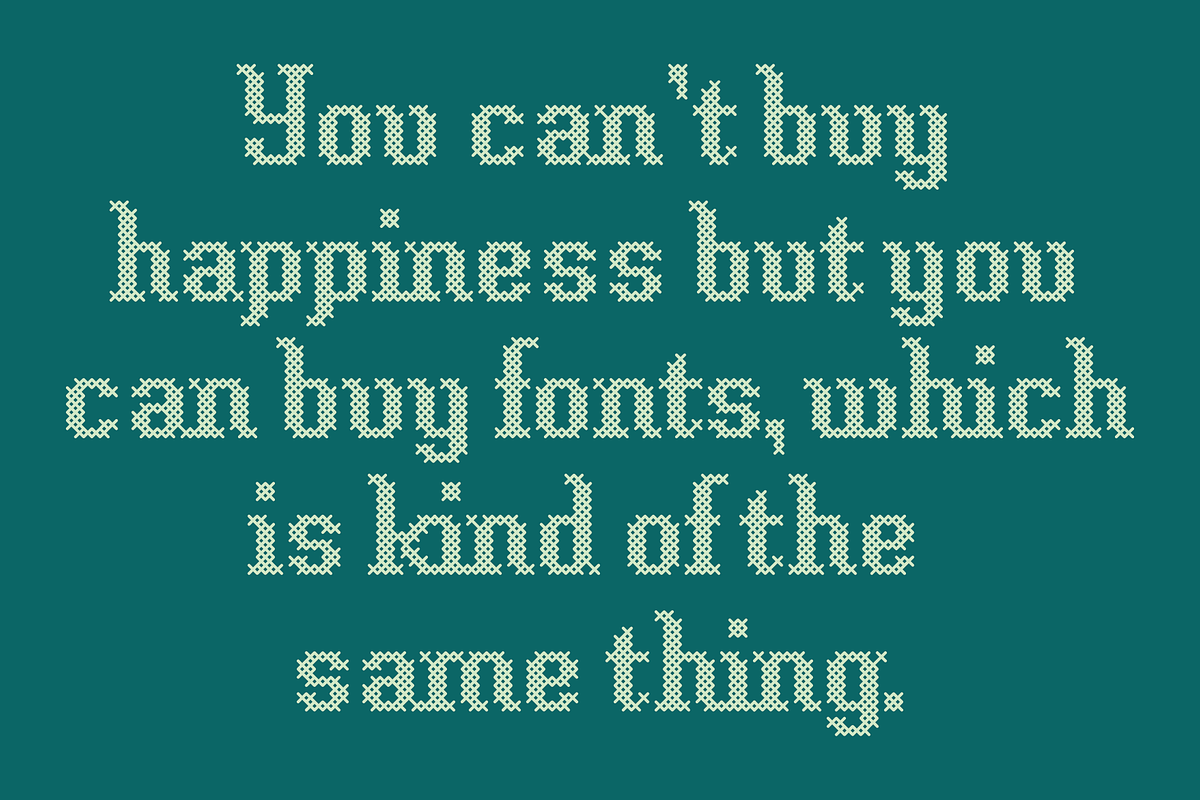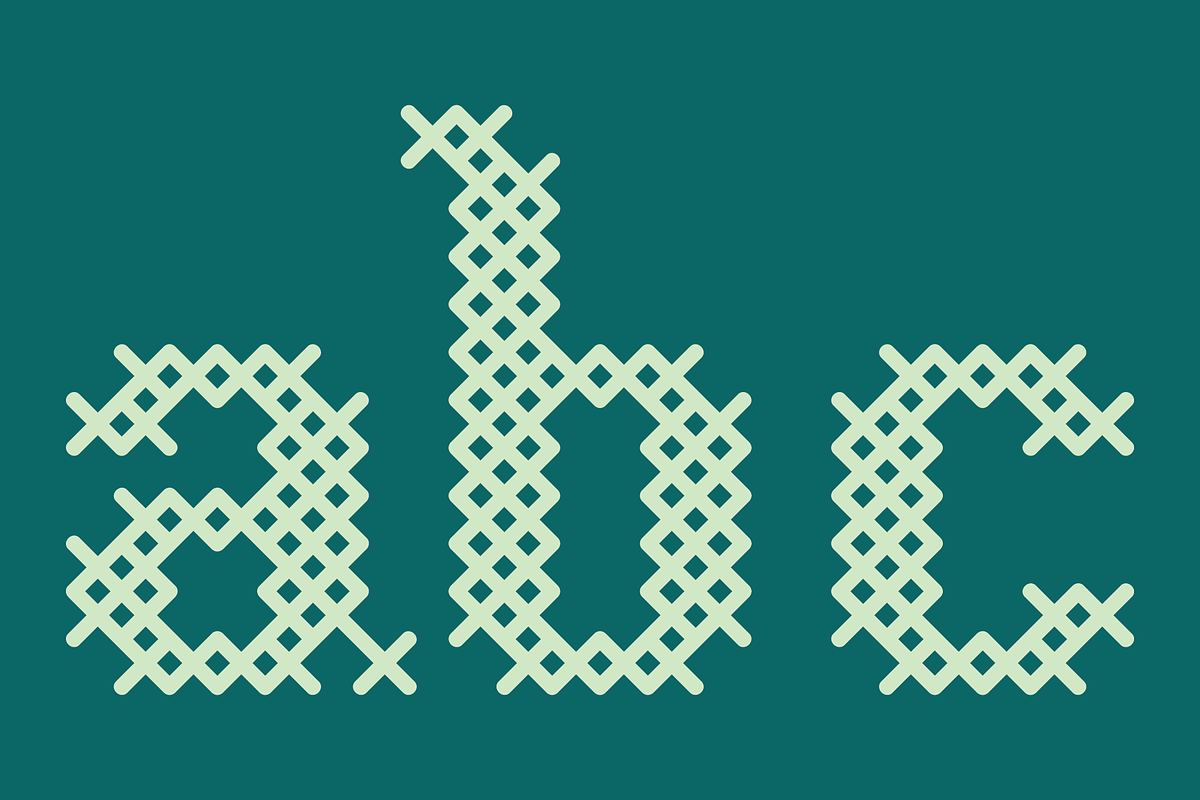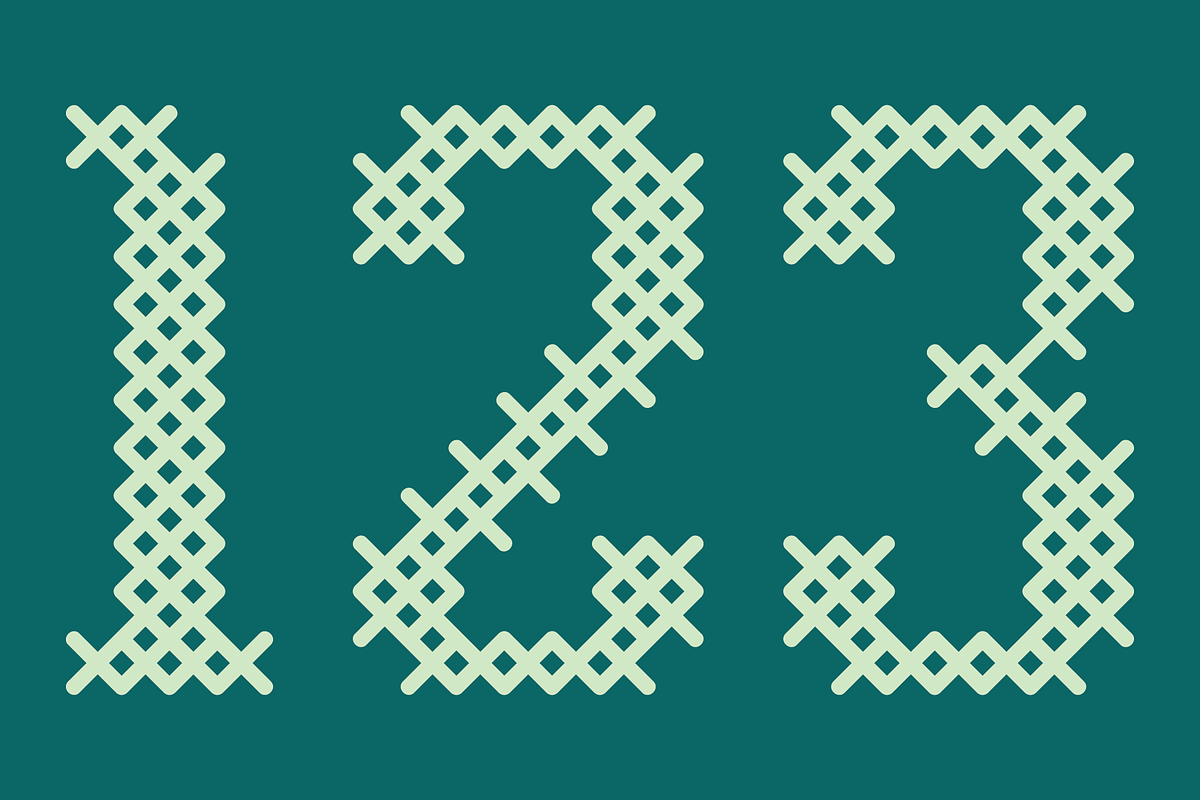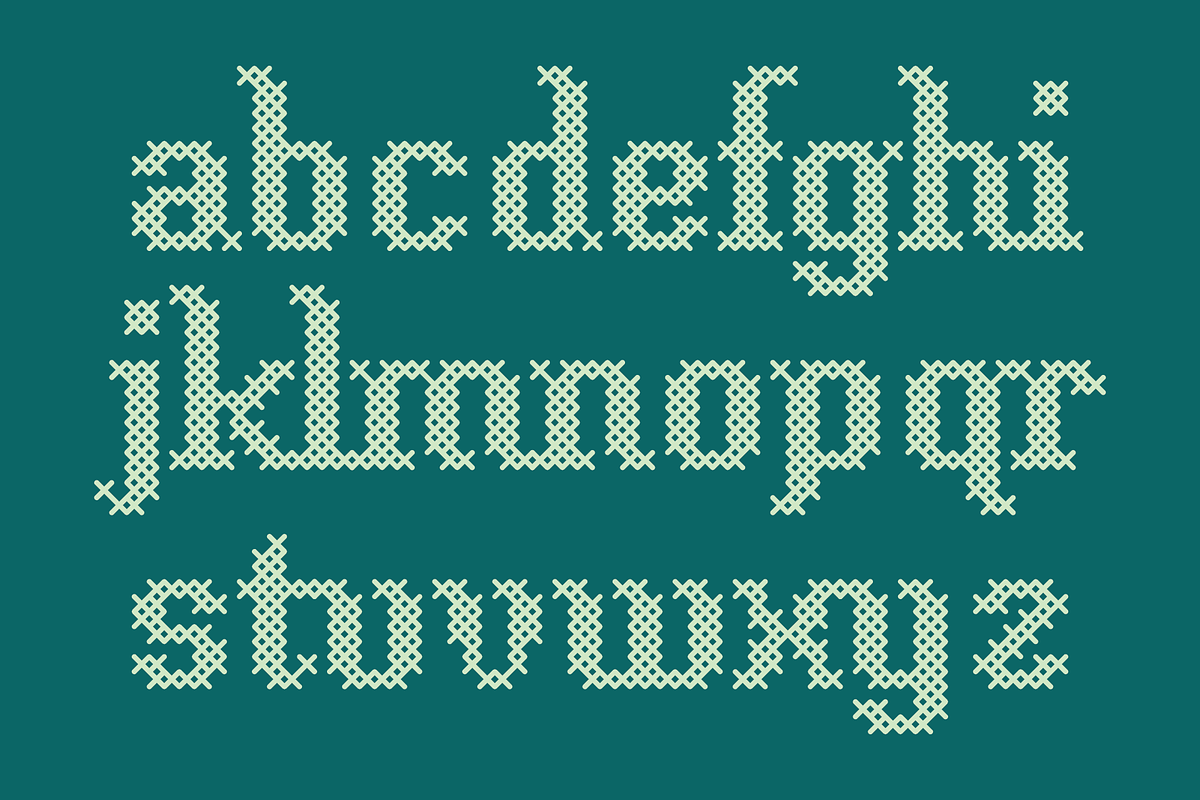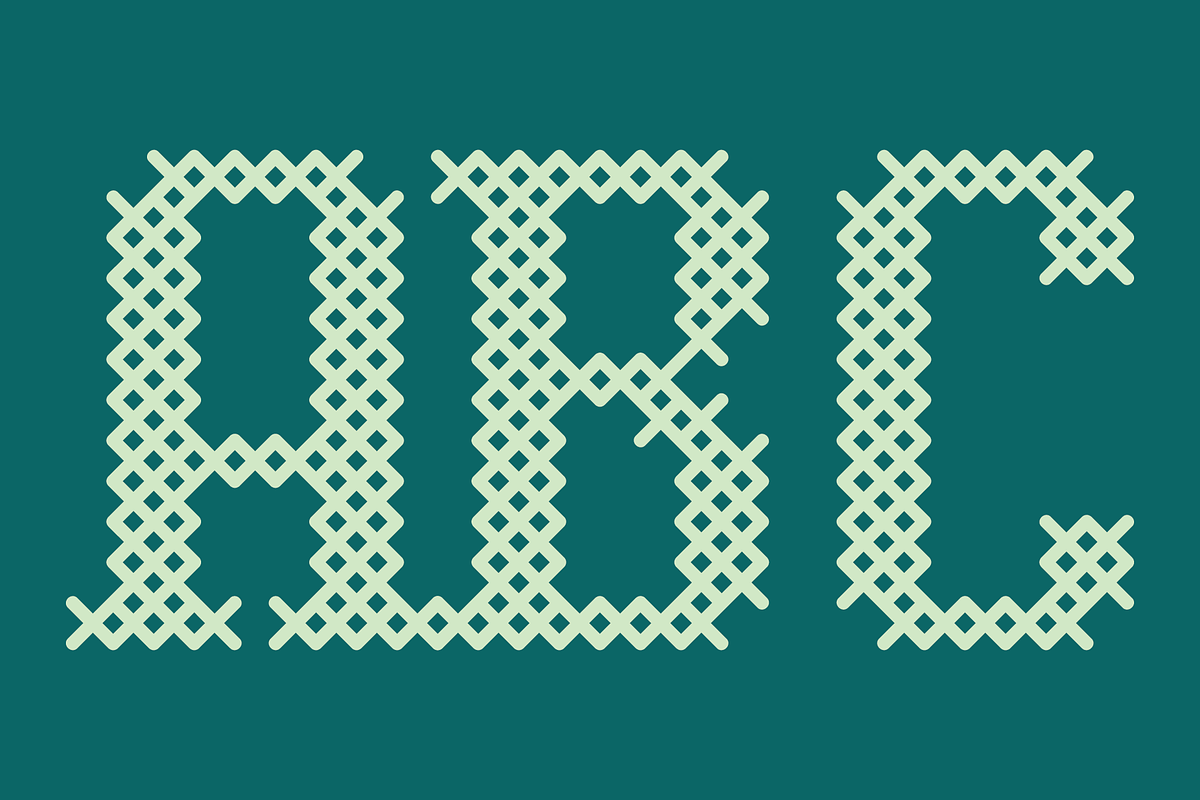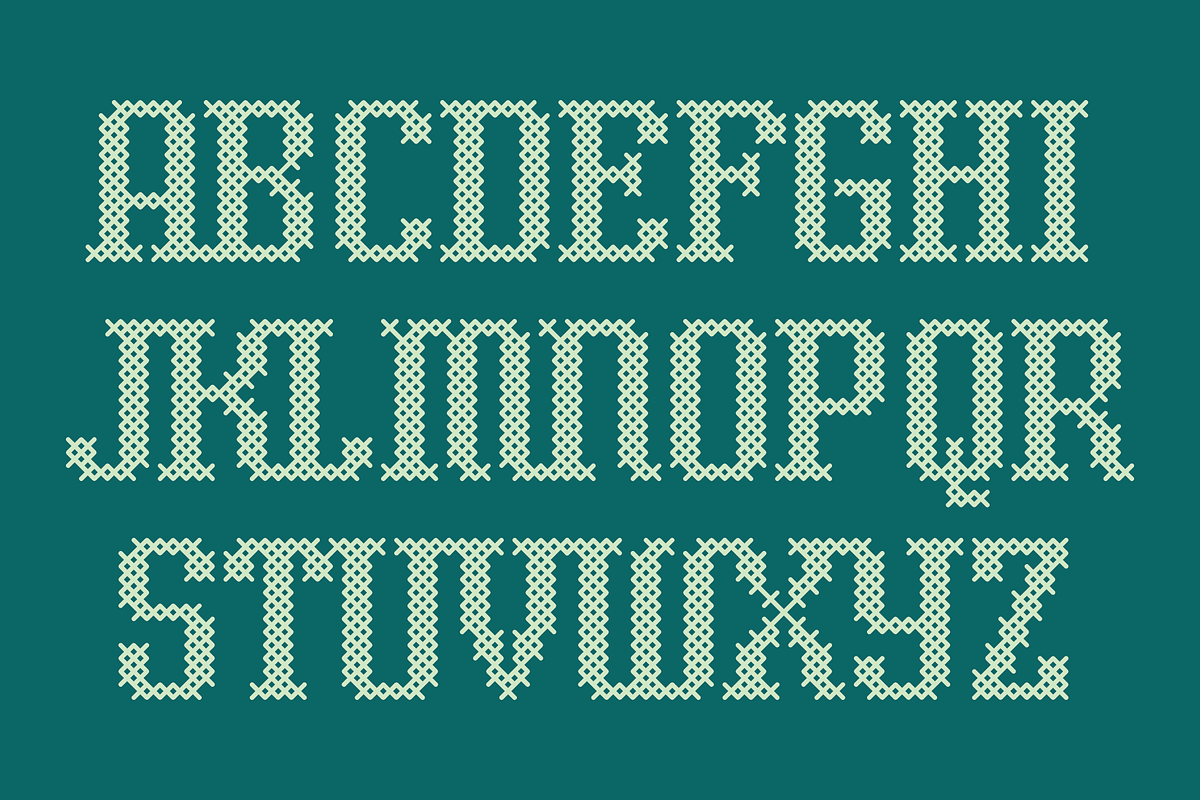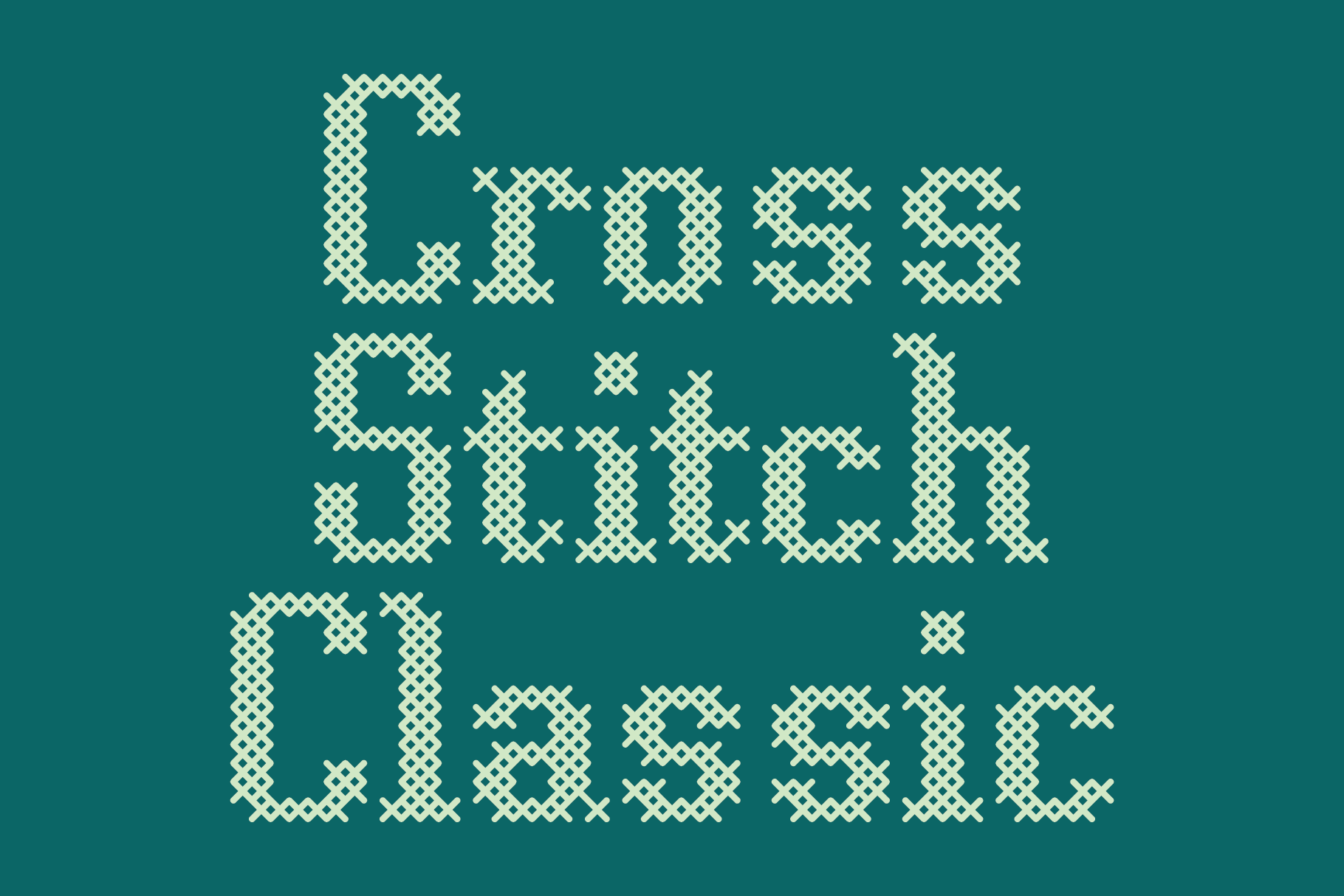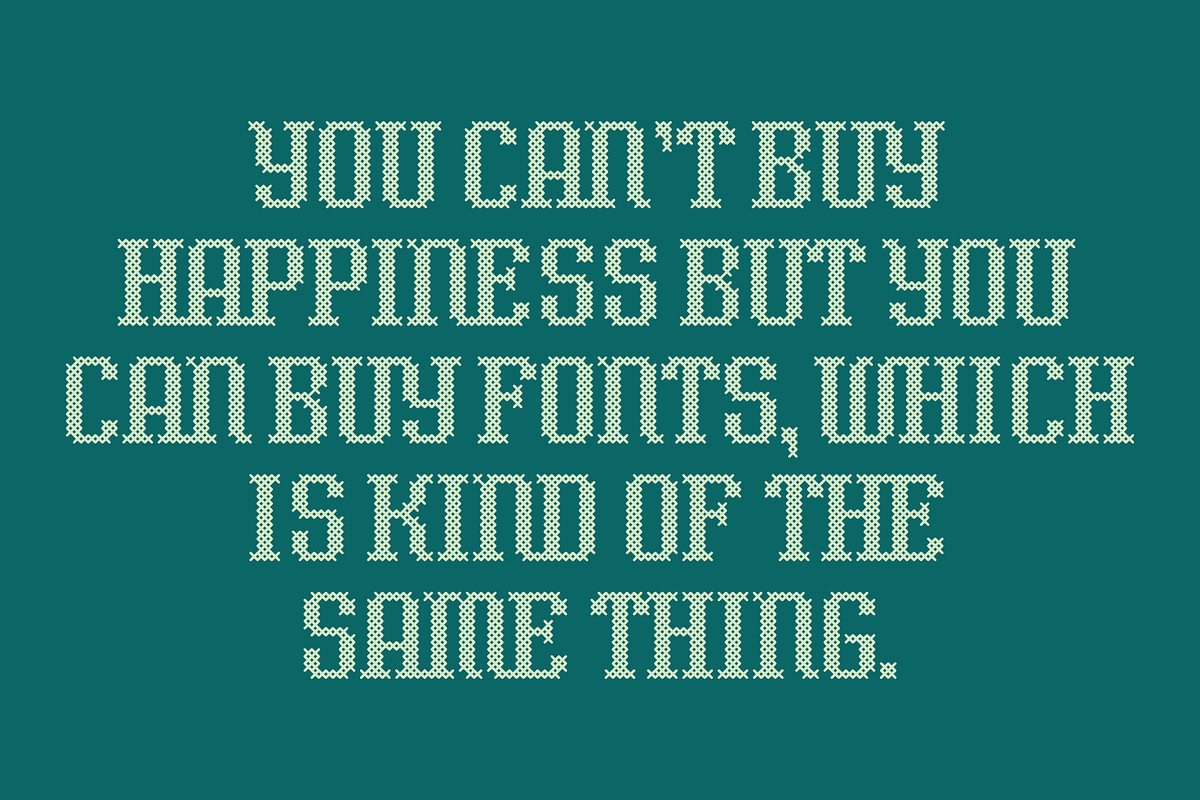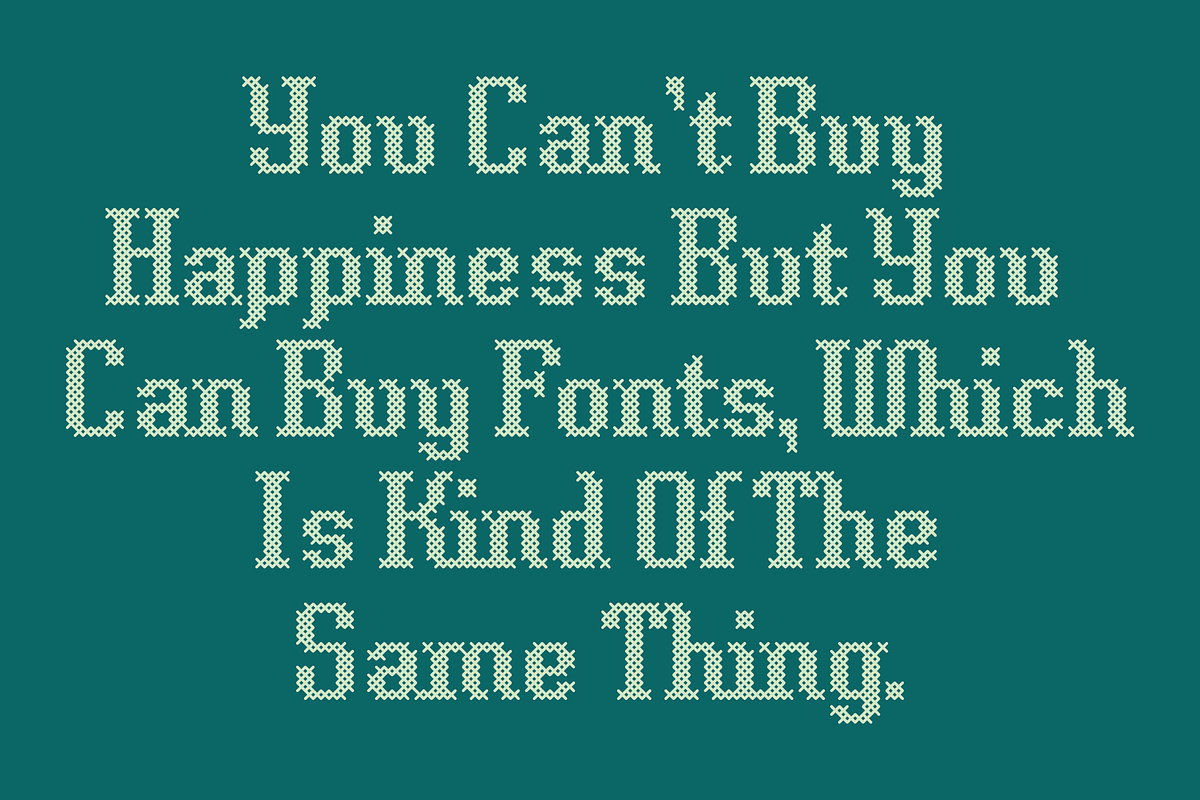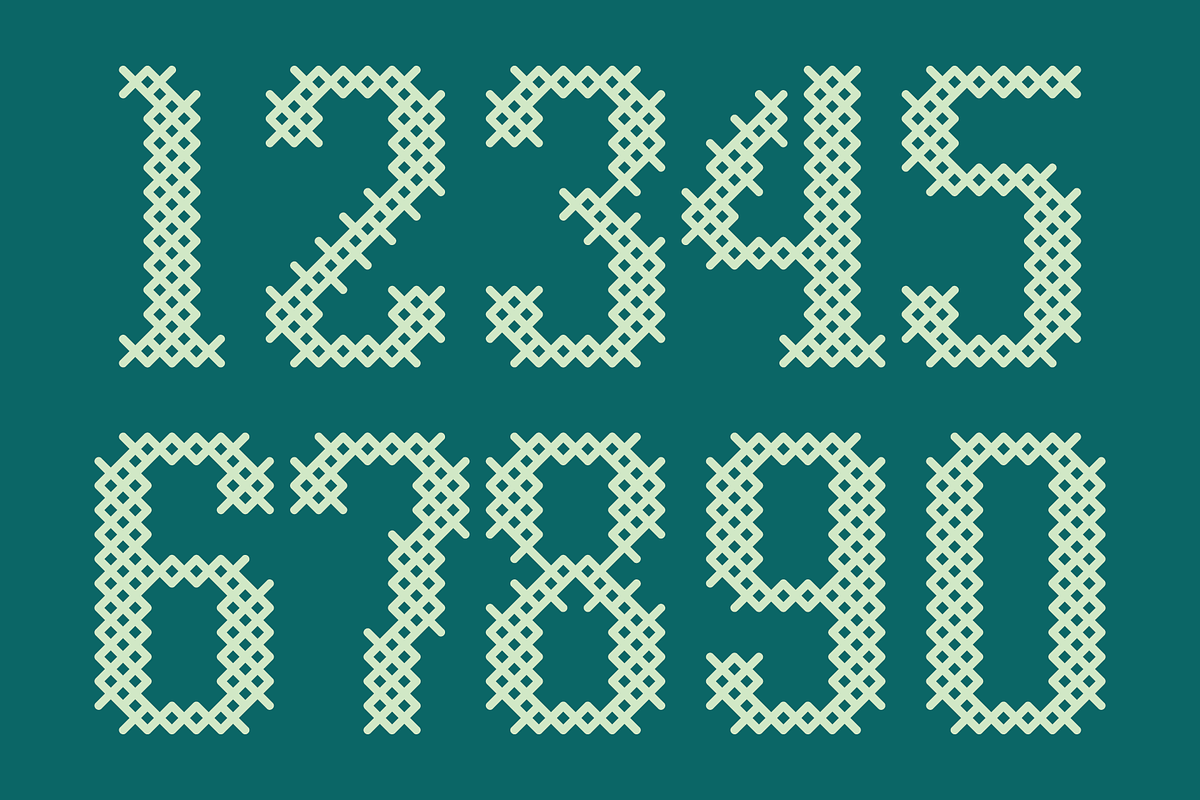
Cross Stitch Classic Font
The Cross Stitch Classic font is for creating designs with letters that appear to be cross stitched for posters, art prints, signage or anything that cross stitched lettering would enhance. It is based on upper case characters 12 stitches tall and contains uppercase characters A-Z, lowercase characters a-z, numbers 0-9, ampersand, exclamation and question marks, comma, period, apostrophe, single quotes, double quotes, dollar sign, pound sign and euro sign.